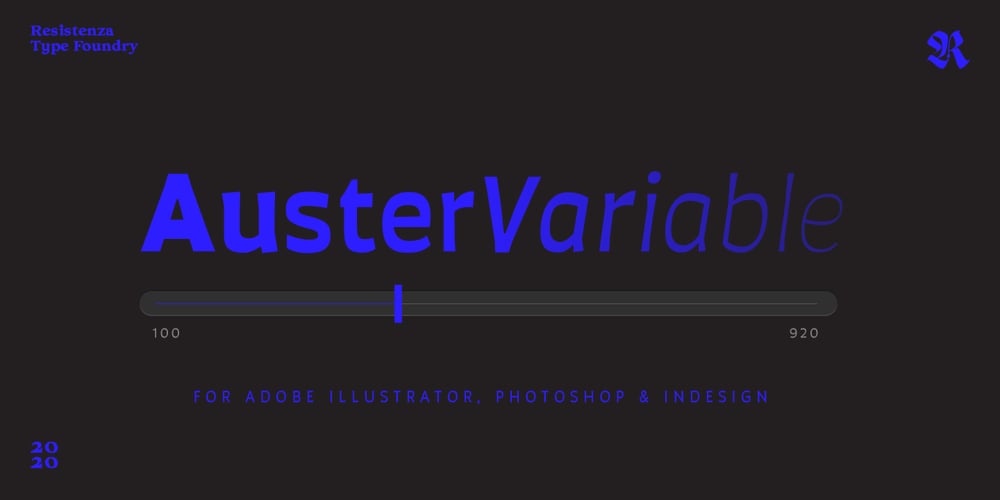
Auster Variable Font Family was designed by Giuseppe Salerno, Paco González and published by Resistenza. Auster Variable contains 2 styles and family package options. Auster Variable for Adobe’s softwares.Auster packs sensational personality in its fine-tuned forms. Confident and quirky, yet comfortable to read, this distinctive san serif family stands out from the crowd. The curves cinch and strokes flair in unconventional places making Auster an unashamed rebel sure to turn heads.More About Opentype Features: https://bit.ly/opentype-rsz